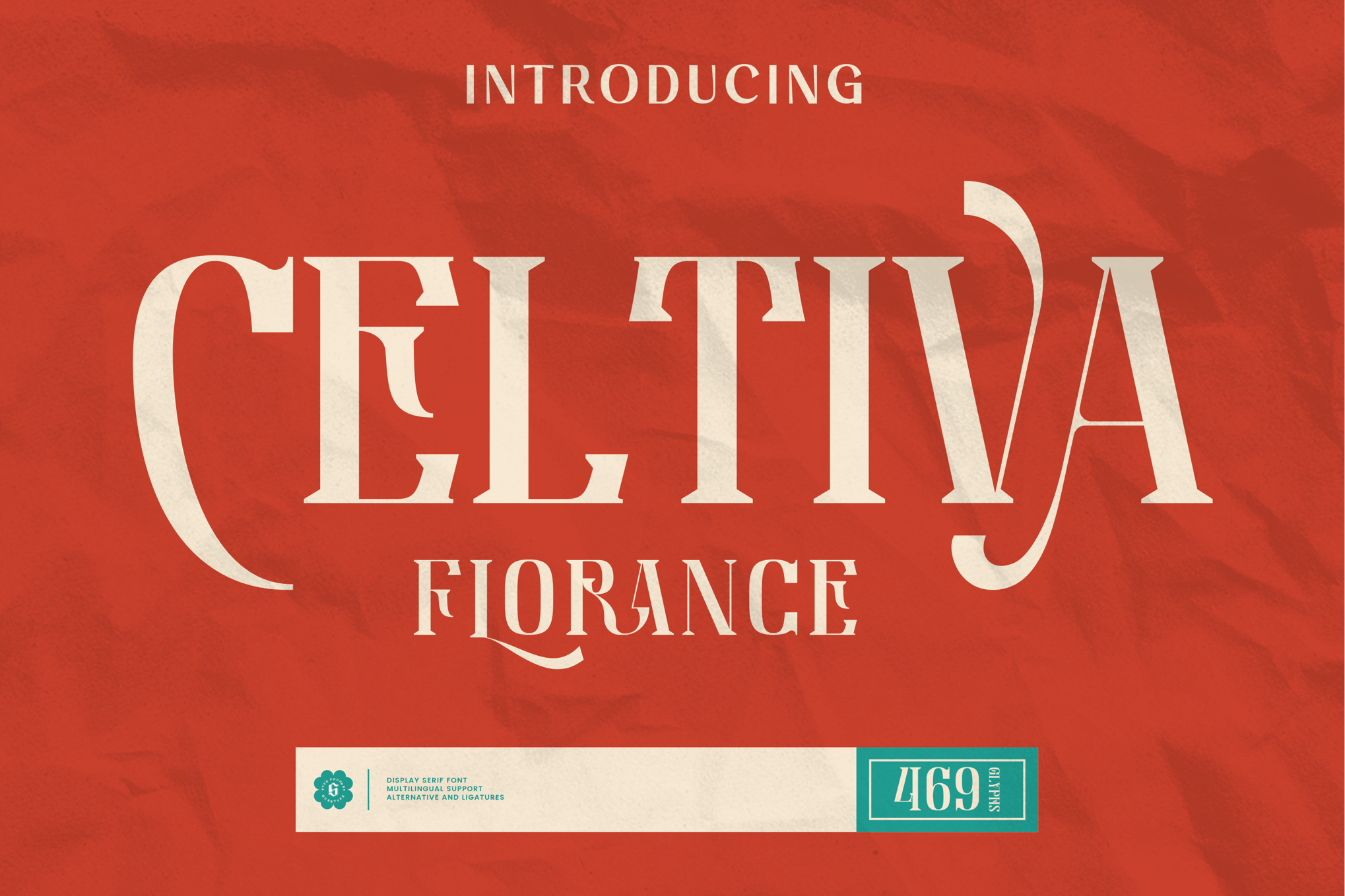
Celtiva Florance – Classic Serif Font
Celtiva Florance – Classic Serif Font is a clean and thoughtfully built typeface that works seamlessly for both professional branding and everyday creative uses. Celtiva Florance is a display serif font. This font has an organic style with a subtle vintage touch, giving it a warm, natural, and slightly nostalgic feel. The shapes flow naturally and feel a bit handcrafted, making the font look friendly and full of character. This font also good for your project like logotypes, magazine headlines, posters, cover albums and much more.